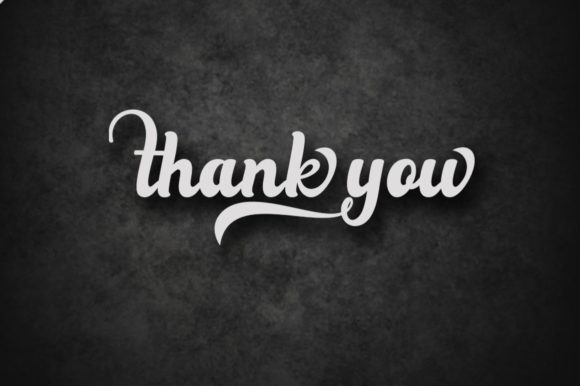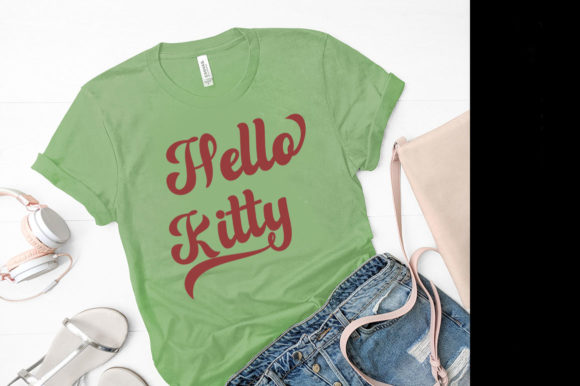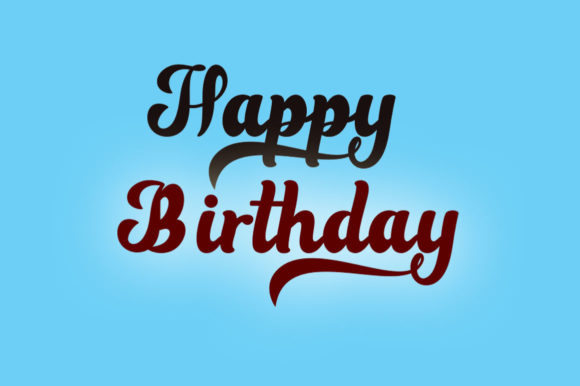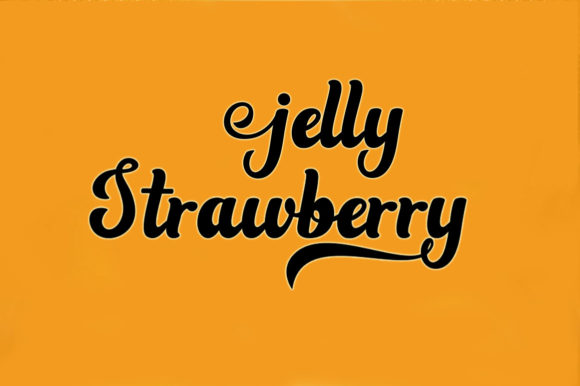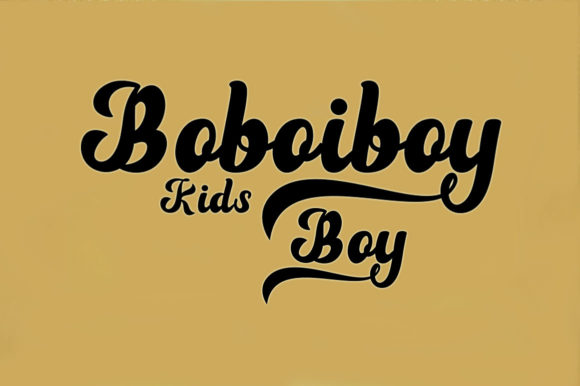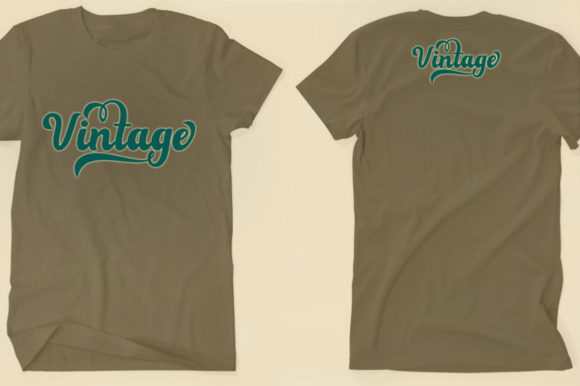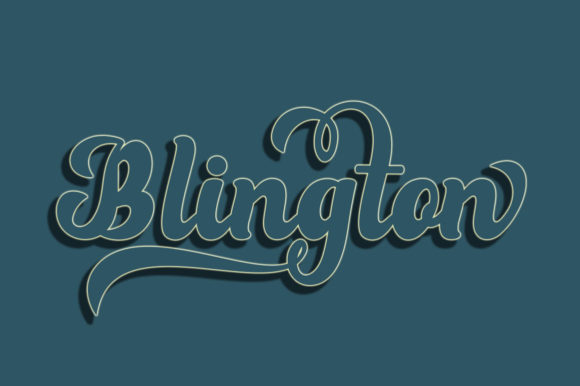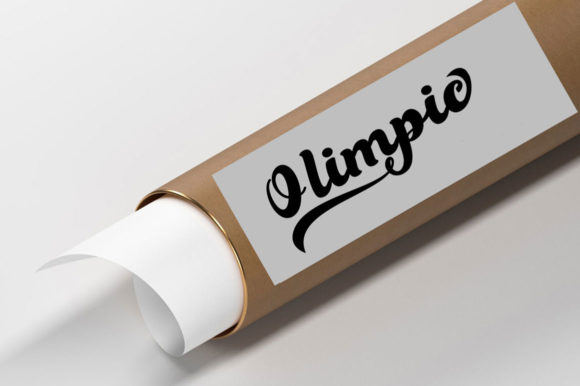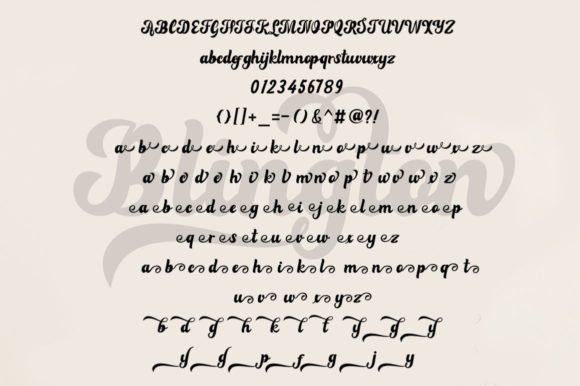
Blington Font
About Blington Font
Blington is a modern script font that is designed to replicate a natural writing style. Get inspired by its authentic charm!